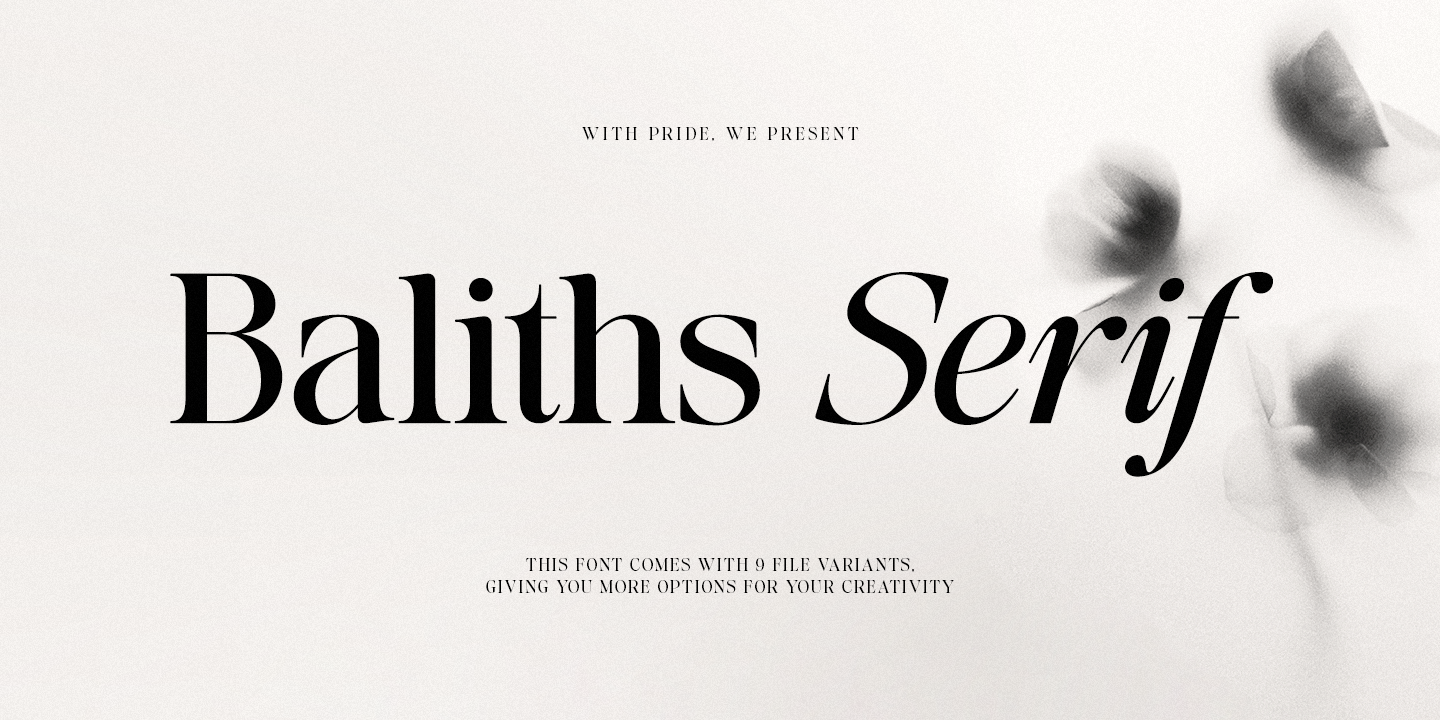
Baliths Serif Font is a strikingly elegant and versatile typeface, perfect for designs that aim to convey sophistication, contemporary luxury, and a distinctive artistic flair. Its refined serifs and balanced letterforms offer a modern twist on classic typography, making it an excellent choice for high-end fashion branding, gourmet product packaging, exclusive event invitations, and editorial layouts for design magazines. Imagine it gracing the logo of a bespoke jewelry atelier, providing an air of refined beauty to a luxury lifestyle blog, or adding a sophisticated touch to boutique hotel collateral. This font is also superb for art gallery titles, fine dining menus, and any project where elegance, clarity, and an elevated visual identity are key. It doesn't just display text; it speaks with a voice of refined taste and contemporary grandeur.
What makes Baliths Serif Font so exciting is its remarkable ability to blend the timeless appeal of traditional serifs with a fresh, modern sensibility. It possesses a distinctive charm that feels both classic and innovative, creating a unique visual appeal that stands out from more conventional typefaces. This characteristic makes it a fantastic choice for designers looking to infuse their projects with a sense of sophisticated artistry and modern elegance. It’s a font that speaks with a polished and graceful voice, making it ideal for brands and content creators who want to convey a message of quality, luxury, and a refined aesthetic. Its captivating appeal can make any headline or body text feel more significant and visually compelling.
The Baliths Serif Font family typically offers a comprehensive range of weights and styles to provide extensive design flexibility and allow for nuanced typographic expressions. While the exact variations can differ based on the specific design, you would generally expect to find key members that support diverse layout needs, such as:
Baliths Serif Thin
Baliths Serif Light
Baliths Serif Regular
Baliths Serif Medium
Baliths Serif SemiBold
Baliths Serif Bold
Baliths Serif Black
Baliths Serif Italic (for various weights)